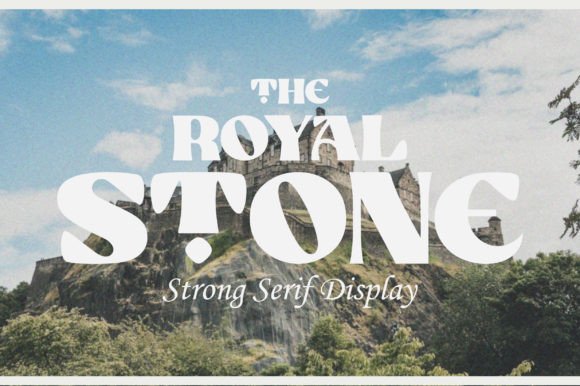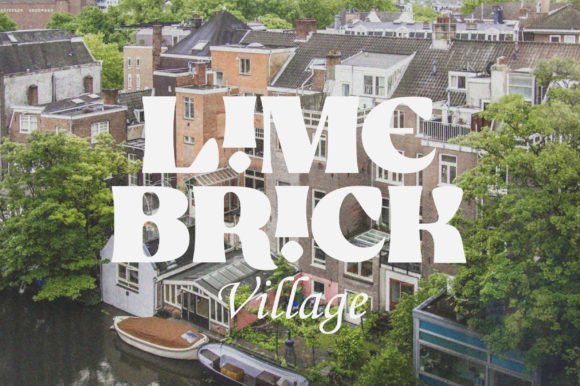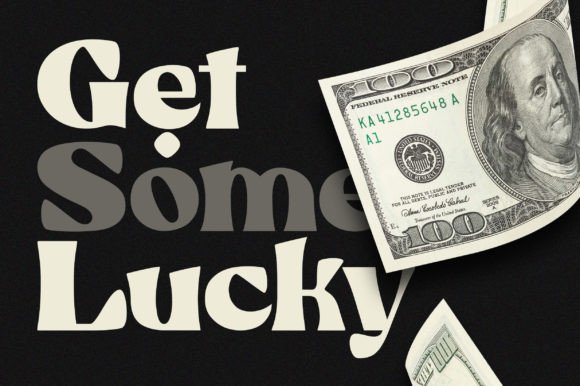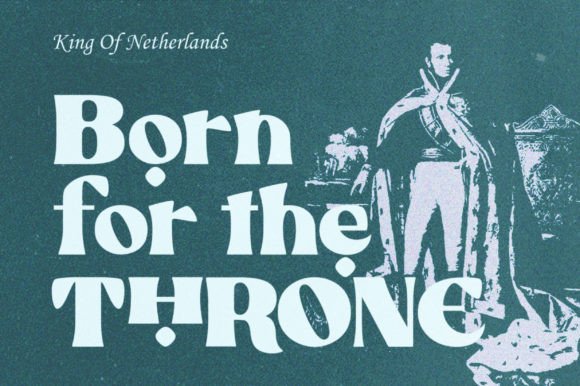
Royal Stone Font
About the Royal Stone Font
Unleash your creativity with Royal Stone Font, a versatile font perfect for a wide range of applications. Royal Stone is a retro display font that brings a touch of nostalgia to any design project. Its bold and striking letters have a strong presence, making it perfect for headlines, titles, and signage. With its vintage-inspired design, Royal Stone is perfect for creating a retro or classic look in branding, packaging, and advertising. Its bold and eye-catching style makes a statement and adds a touch of personality to any project.
Royal Stone’s strong visual impact makes it ideal for headlines, logos, and short impactful phrases in posters or branding materials. It excels in applications requiring immediate visual attention, such as signage or packaging where a bold statement is desired. However, its highly stylized forms and relatively large x-height make it unsuitable for body text or UI elements requiring high readability.
Consider pairing Royal Stone with a clean sans-serif like Open Sans or Lato for a balanced contrast, allowing the display font to take center stage. For a more vintage feel, a serif like Playfair Display or Merriweather would complement its retro style. Avoid pairing it with other highly decorative fonts to prevent visual clutter.
Royal Stone projects a bold, confident, and nostalgic personality. It suits brands aiming for a retro-inspired aesthetic, those emphasizing heritage, or projects needing a strong, attention-grabbing visual presence. Think classic Americana, vintage clothing lines, or retro-themed entertainment.
Royal Stone Font Usage Examples
Royal Stone Font Example